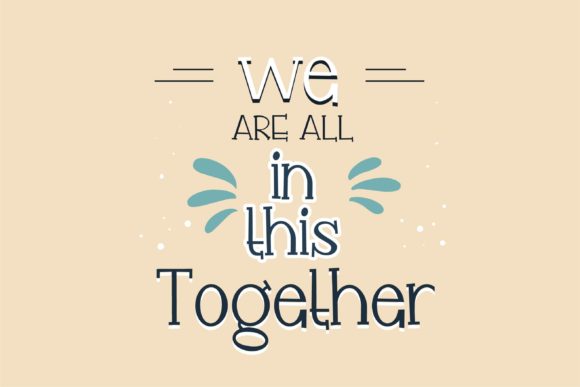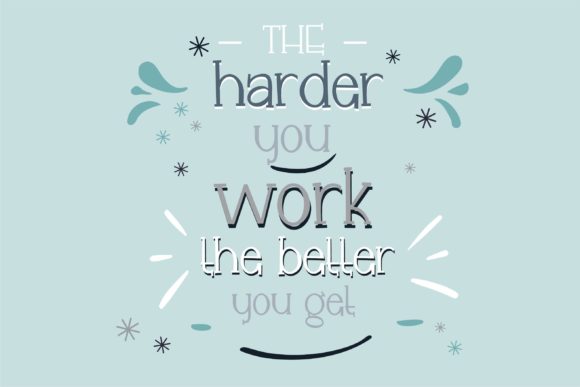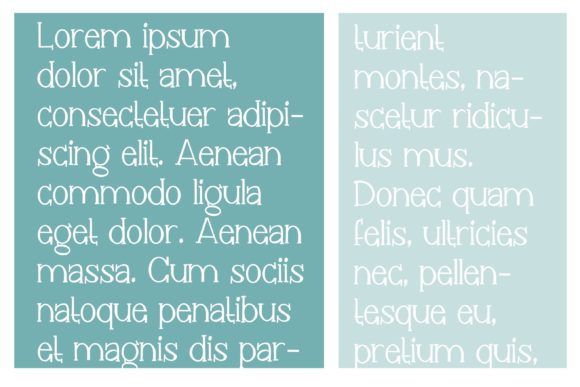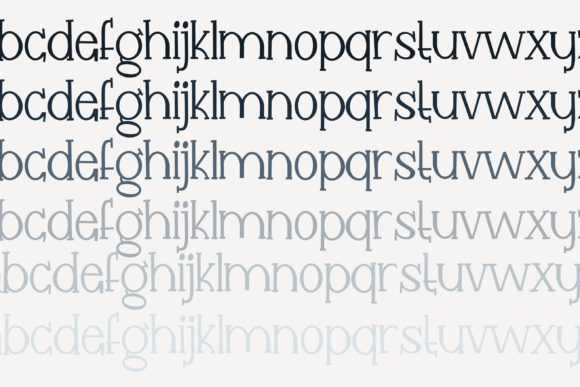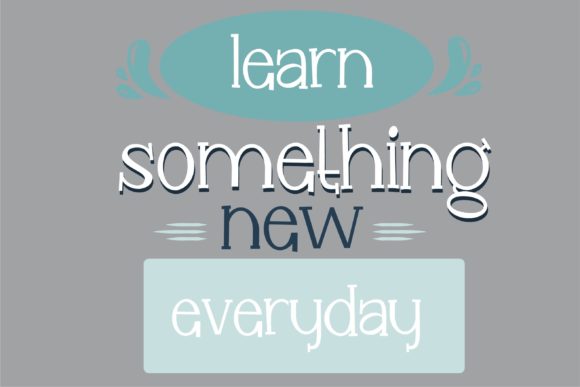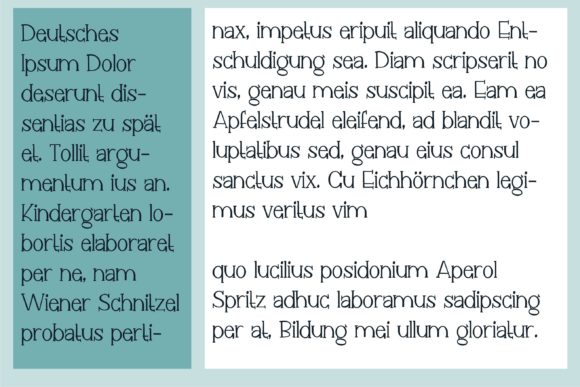
Coddington Font: Elevate Your Design with a Youthful and Chic Serif
In the world of typography, fonts play a crucial role in conveying the tone and personality of a brand or design. For designers and crafters looking for a typeface that exudes youthfulness and sophistication, Coddington Font is an excellent choice. This stylish serif font is perfect for a variety of applications, including product packaging, branding projects, magazine covers, social media, wedding designs, and more.
The Characteristics of Coddington Font
Coddington Font is a carefully crafted typeface that boasts a unique blend of classic and modern elements. Its serif design gives it a touch of elegance, while its youthful and chic vibe makes it perfect for contemporary designs. The font’s clean lines, balanced proportions, and subtle flair at the terminals create a beautiful visual harmony that is sure to capture the attention of your audience.
Whether you’re working on a product packaging design, a branding project, or a magazine cover, Coddington Font is an excellent choice. Its versatility and legibility make it suitable for a wide range of applications, from headlines and titles to body text. The font’s stylish and sophisticated appearance also makes it perfect for wedding designs, social media graphics, and other creative projects where visual impact is crucial.
Why Choose Coddington Font?
So, why should you choose Coddington Font for your next design project? Here are just a few reasons:
- Unique and stylish design: Coddington Font boasts a distinctive and eye-catching design that will set your project apart from the rest.
- Versatility: The font is suitable for a wide range of applications, from product packaging to social media graphics.
- Legibility: Coddington Font is designed to be easy to read, making it perfect for body text and headlines.
- Elegant and sophisticated: The font’s serif design and clean lines give it a touch of elegance and sophistication.
Tips for Using Coddington Font
To get the most out of Coddington Font, here are a few tips:
- Use it as a headline font: Coddington Font is perfect for grabbing attention with headlines and titles.
- Pair it with a sans-serif font: For body text, consider pairing Coddington Font with a clean sans-serif font to create visual contrast.
- Experiment with colors: Coddington Font looks great in a variety of colors, so don’t be afraid to experiment and find the perfect hue for your design.
- Use it for branding: Coddington Font is an excellent choice for branding projects, as it’s stylish, sophisticated, and memorable.
In conclusion, Coddington Font is a stylish and versatile serif font that’s perfect for designers and crafters looking to elevate their designs. Its unique blend of classic and modern elements makes it suitable for a wide range of applications, from product packaging to social media graphics. With its elegant and sophisticated appearance, Coddington Font is sure to make a lasting impression on your audience.